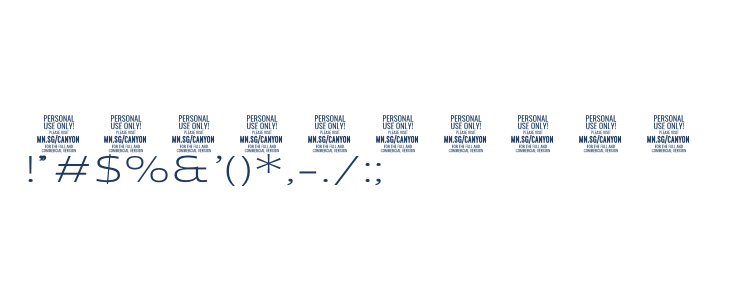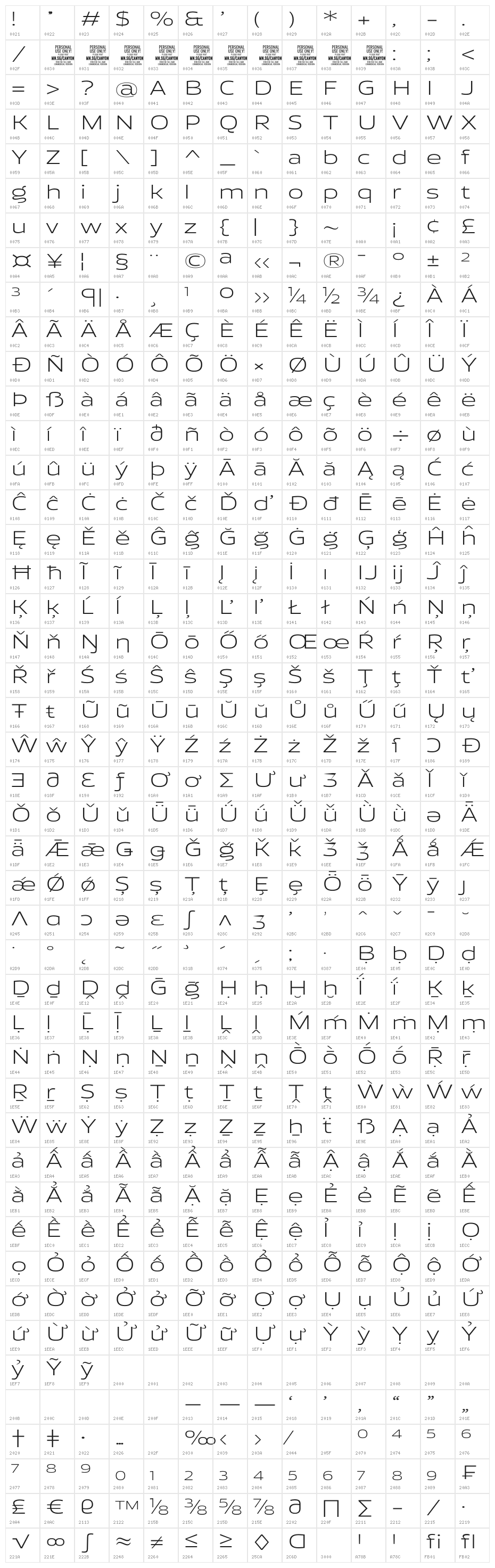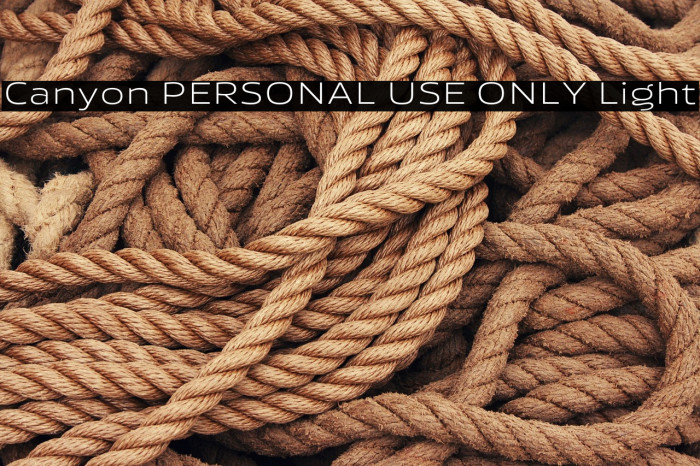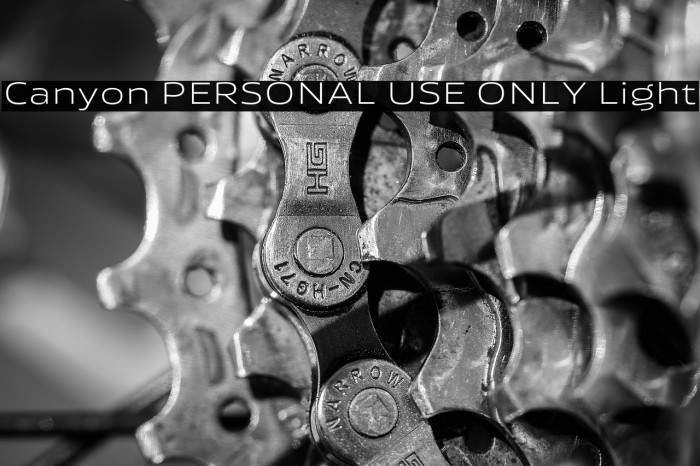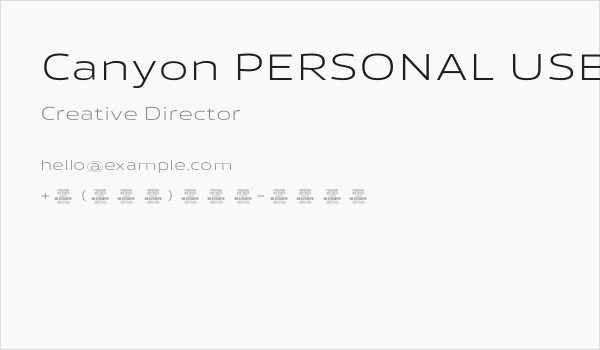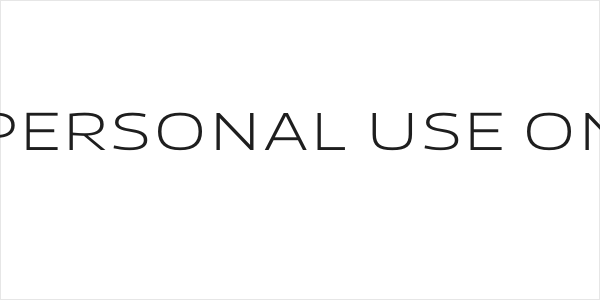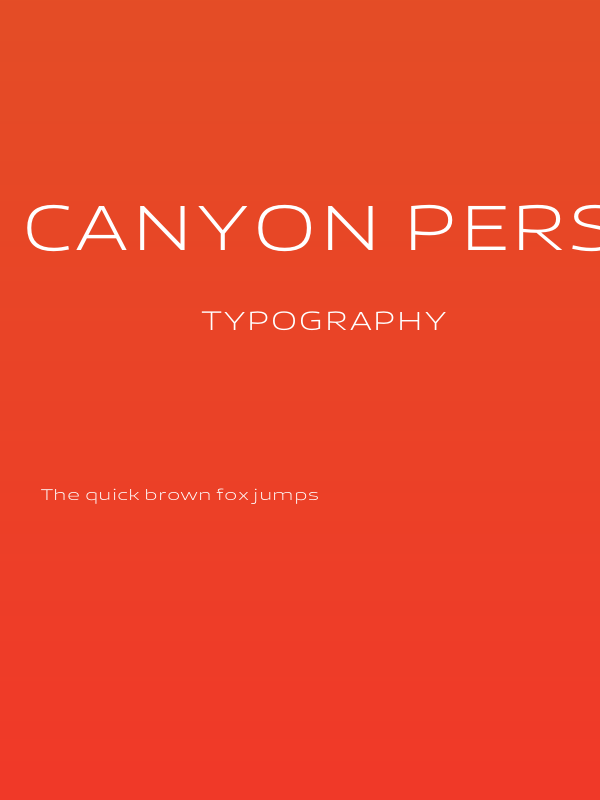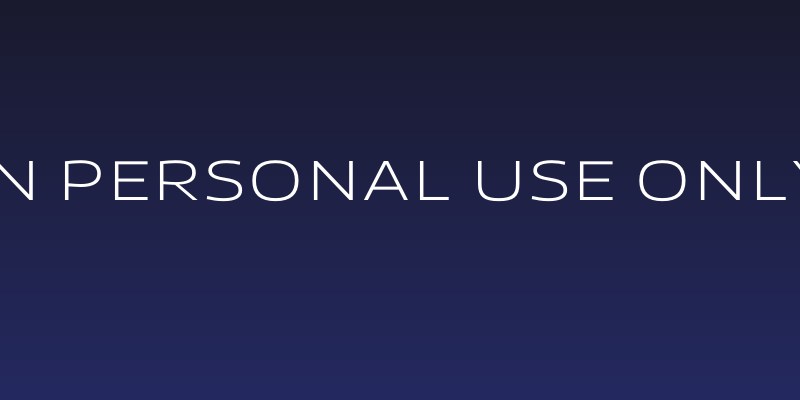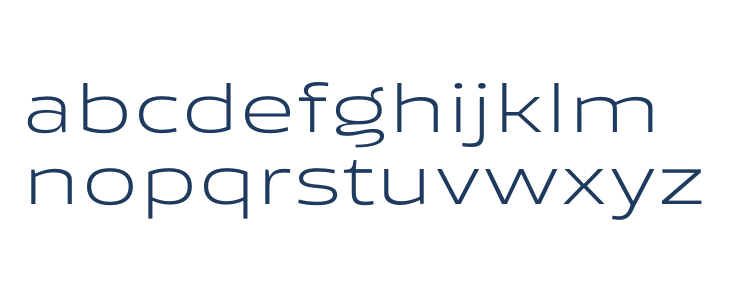
Canyon PERSONAL USE ONLY Light Font
Canyon PERSONAL USE ONLY Light Description
This font features a clean and modern sans-serif design with a light weight, making it ideal for minimalist and contemporary projects. The characters are well-proportioned with a consistent stroke width, providing a sleek and elegant appearance. The uppercase and lowercase letters maintain a uniform style, enhancing readability. The numerals and special characters are designed to match the overall aesthetic, ensuring a cohesive look across all text elements. Its simplicity and clarity make it suitable for a wide range of applications.
Proposed ProjectsIdeal for branding, web design, corporate materials, and editorial layouts.